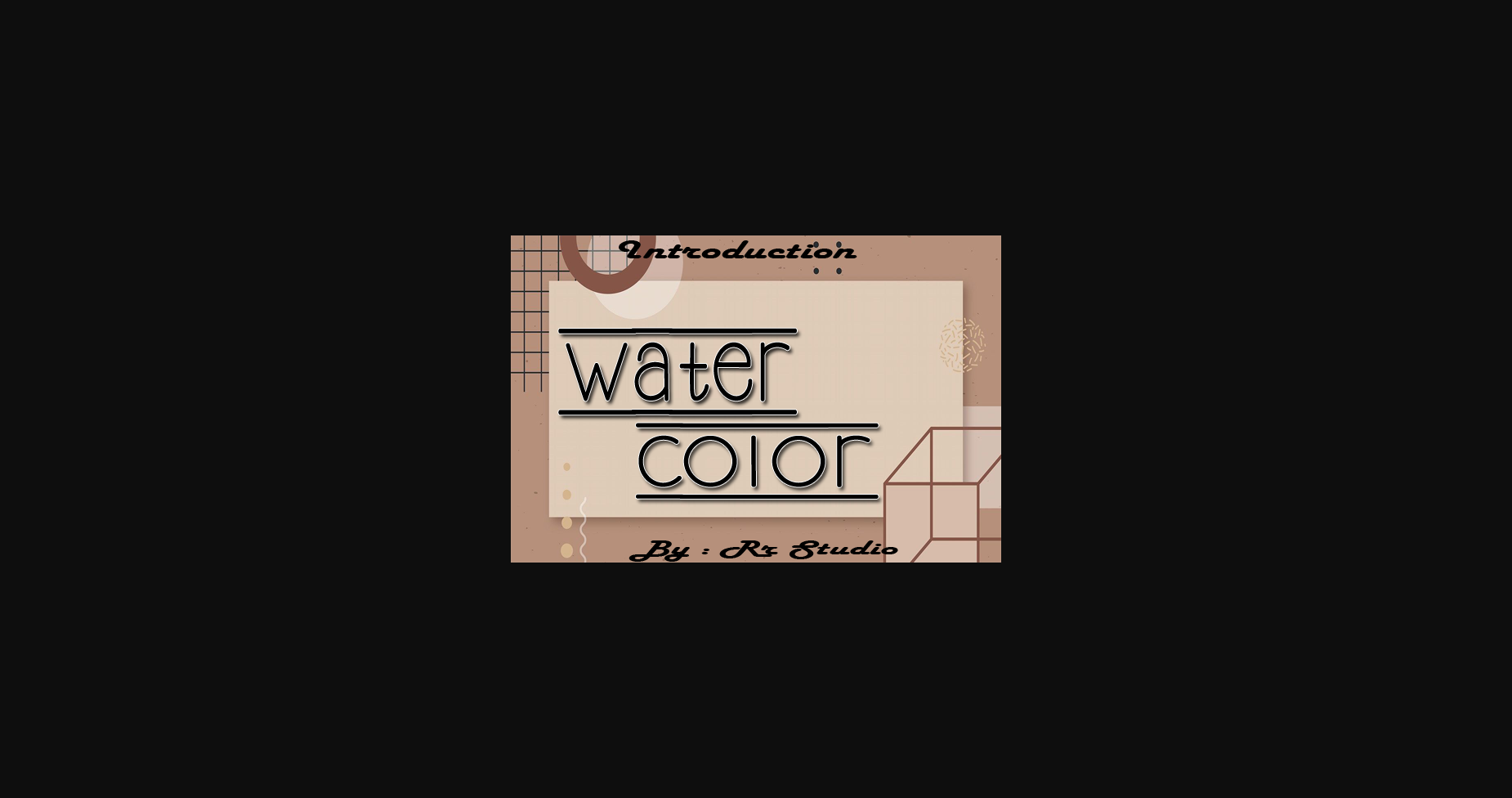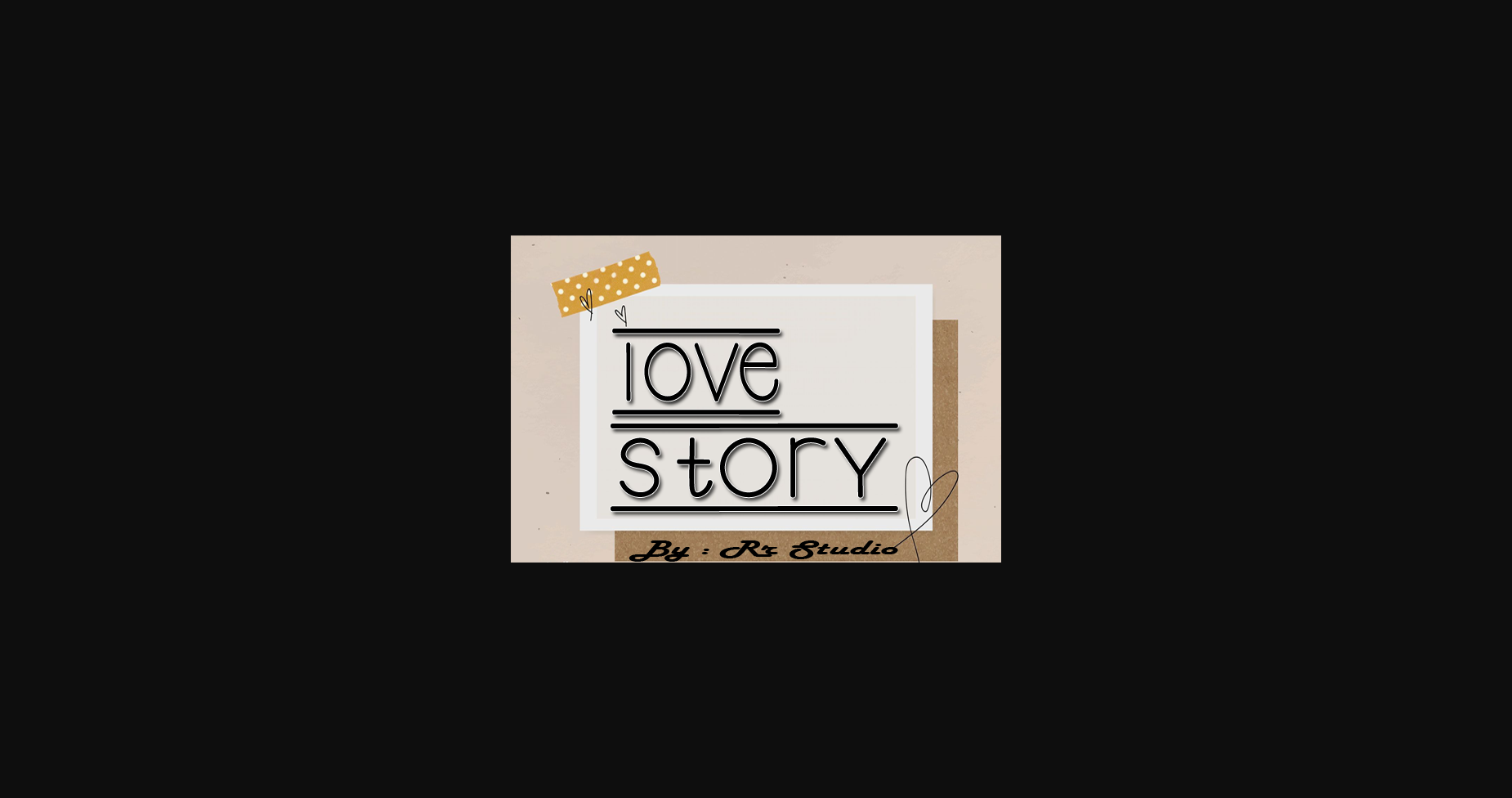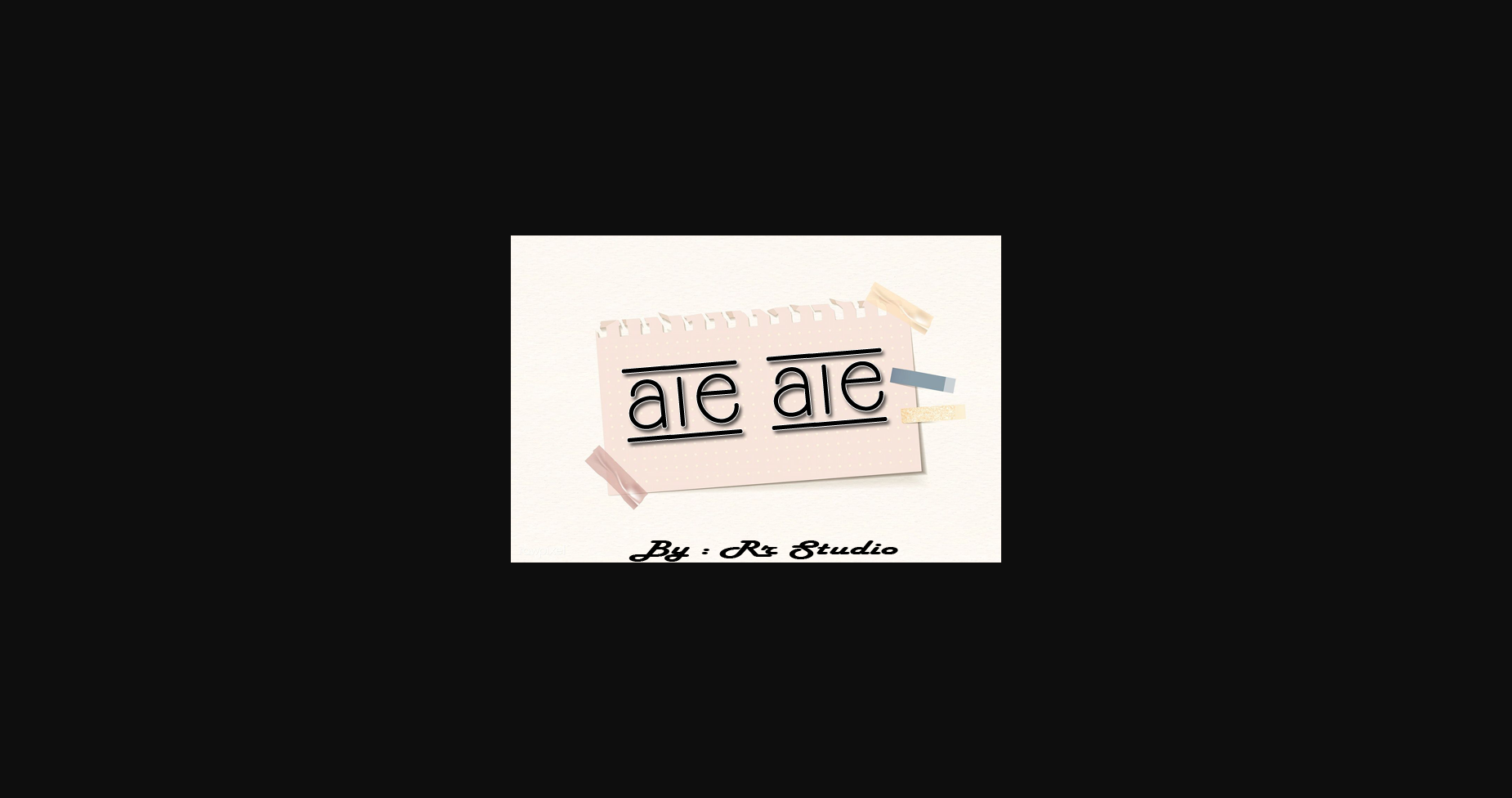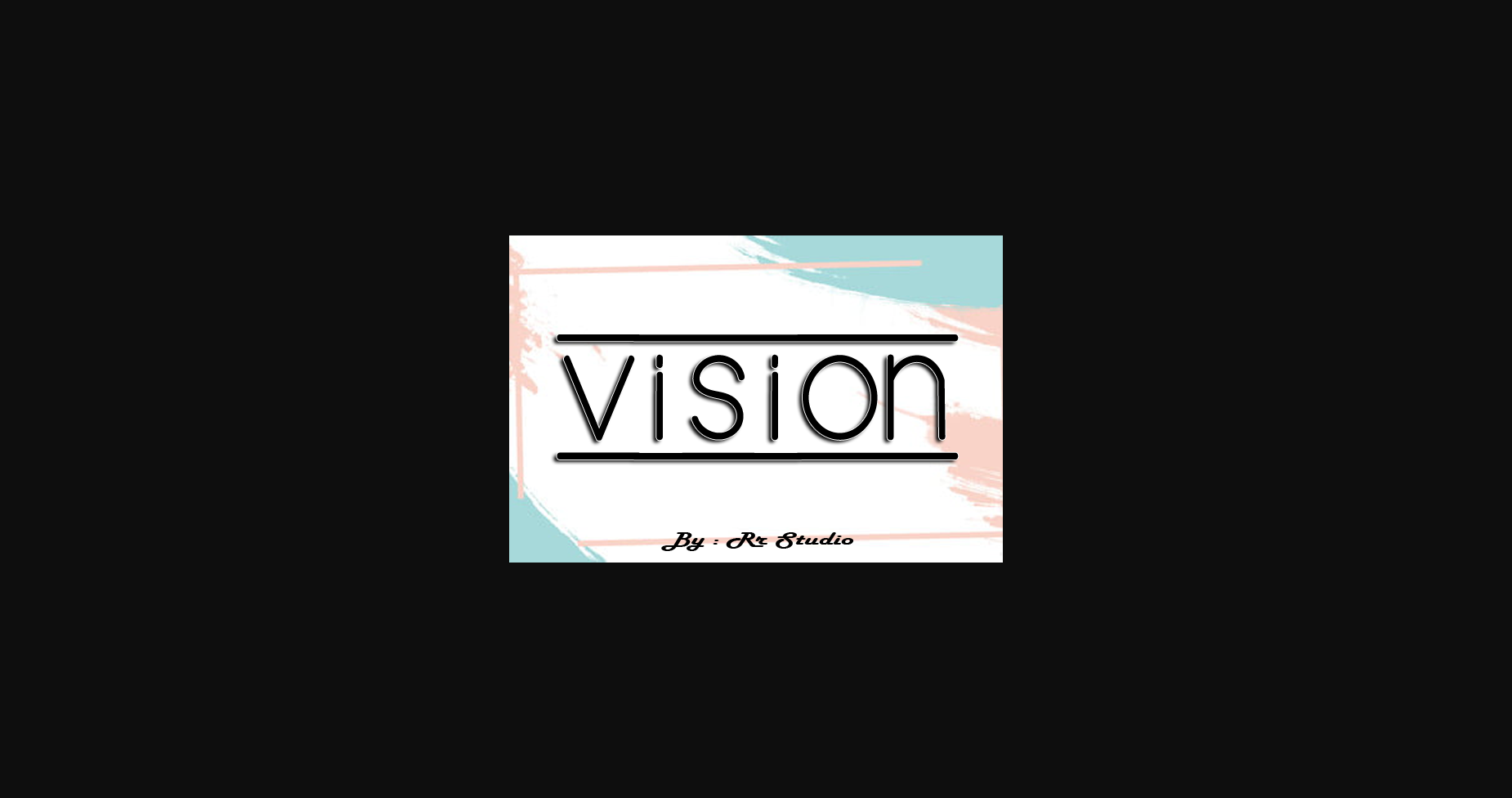
About Water Color Font
Water Color is a minimal and neat sans serif font. It can easily be matched to an incredibly large set of projects, so add it to your creative ideas and notice how it makes them stand out!